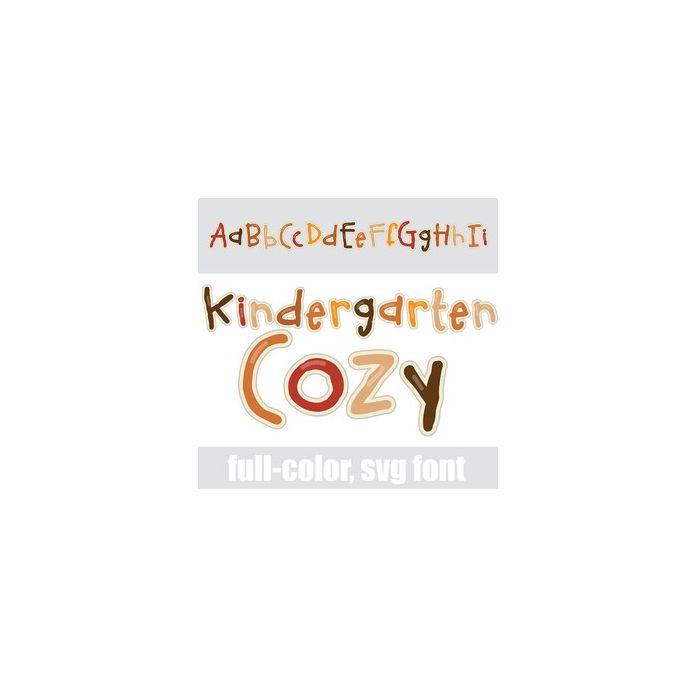
This full-color font features a very youthful, hand-drawn font filled with autumn colors. here is an alt case w/ additional colors you can access through your system or Silhouette's glyph map.